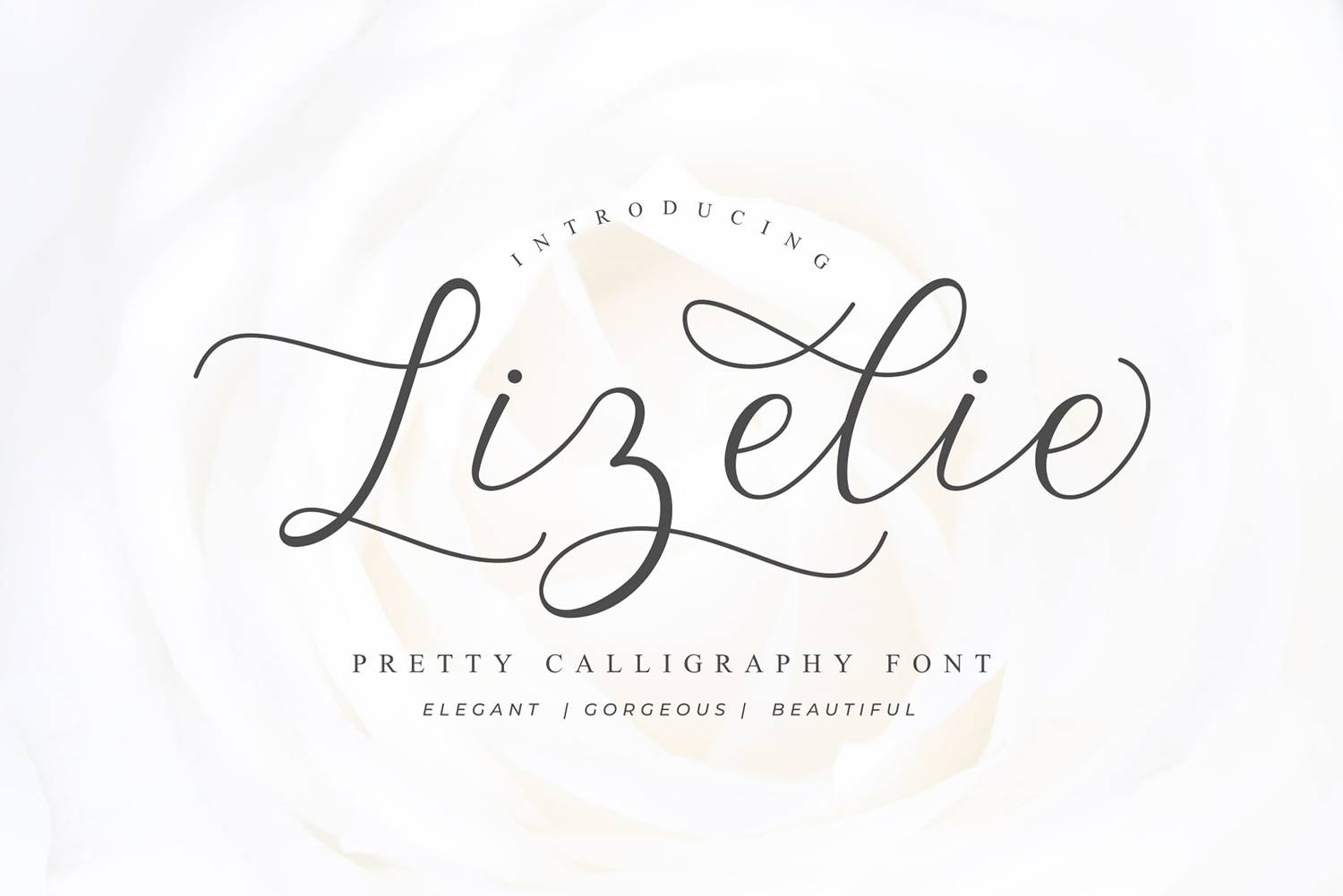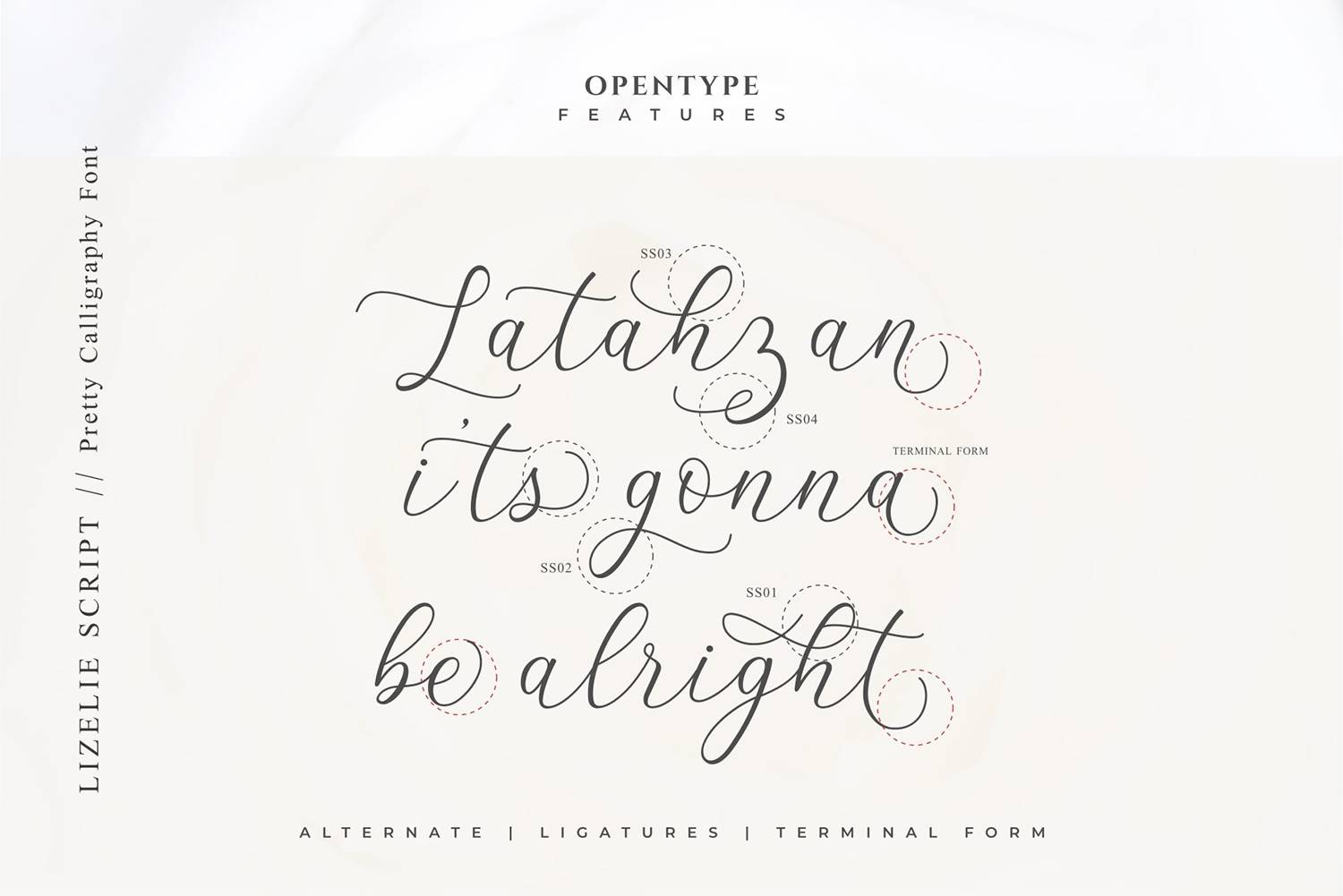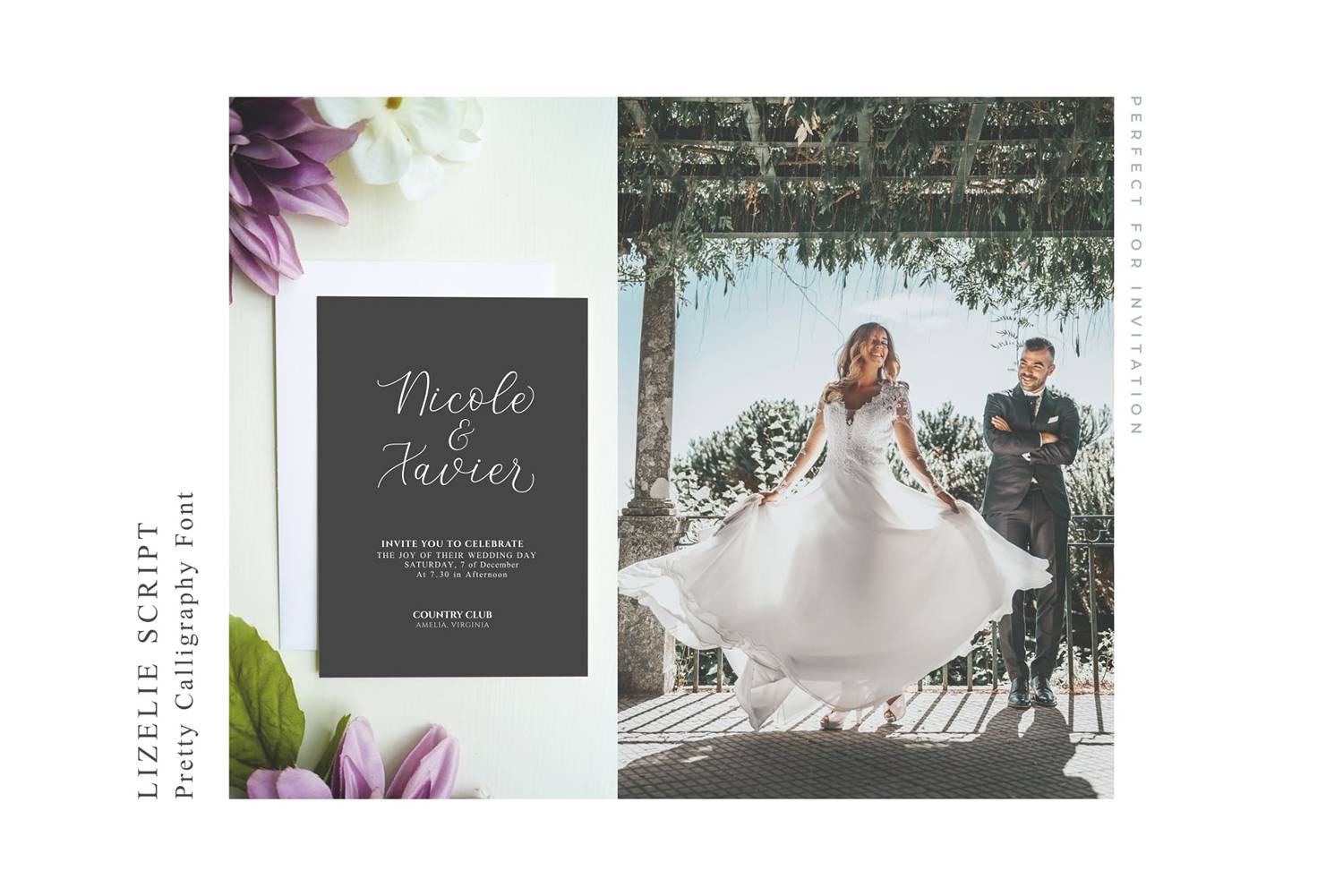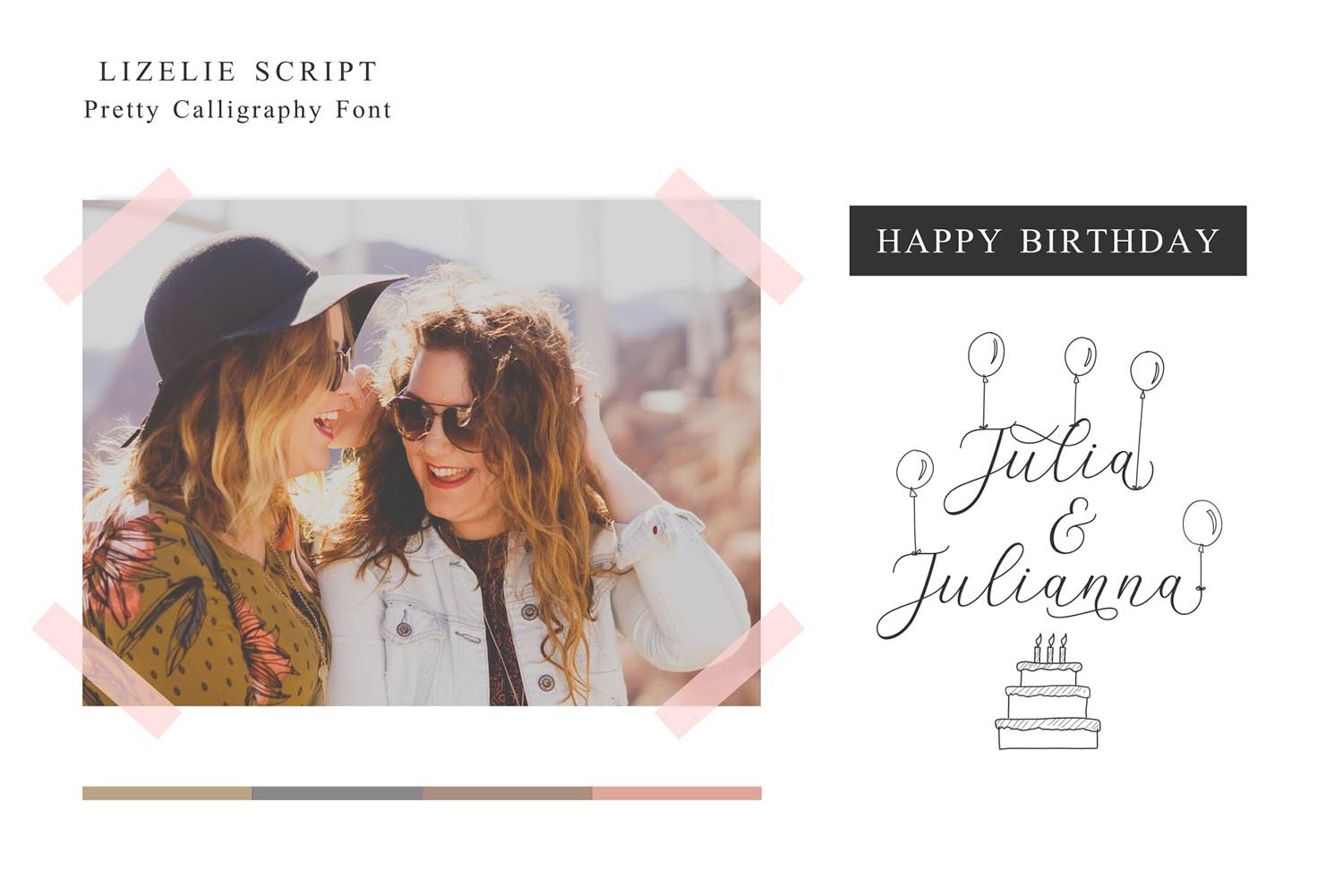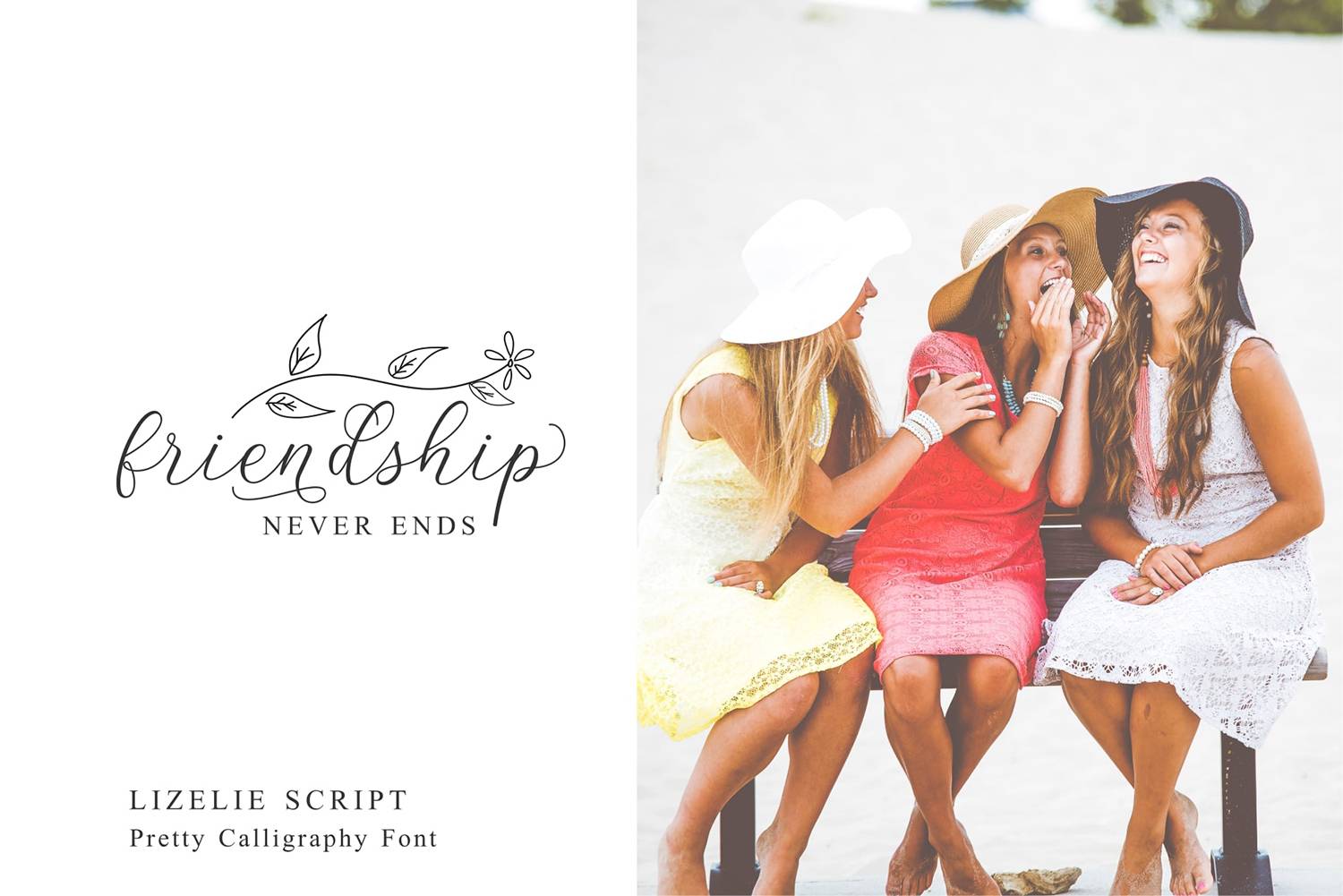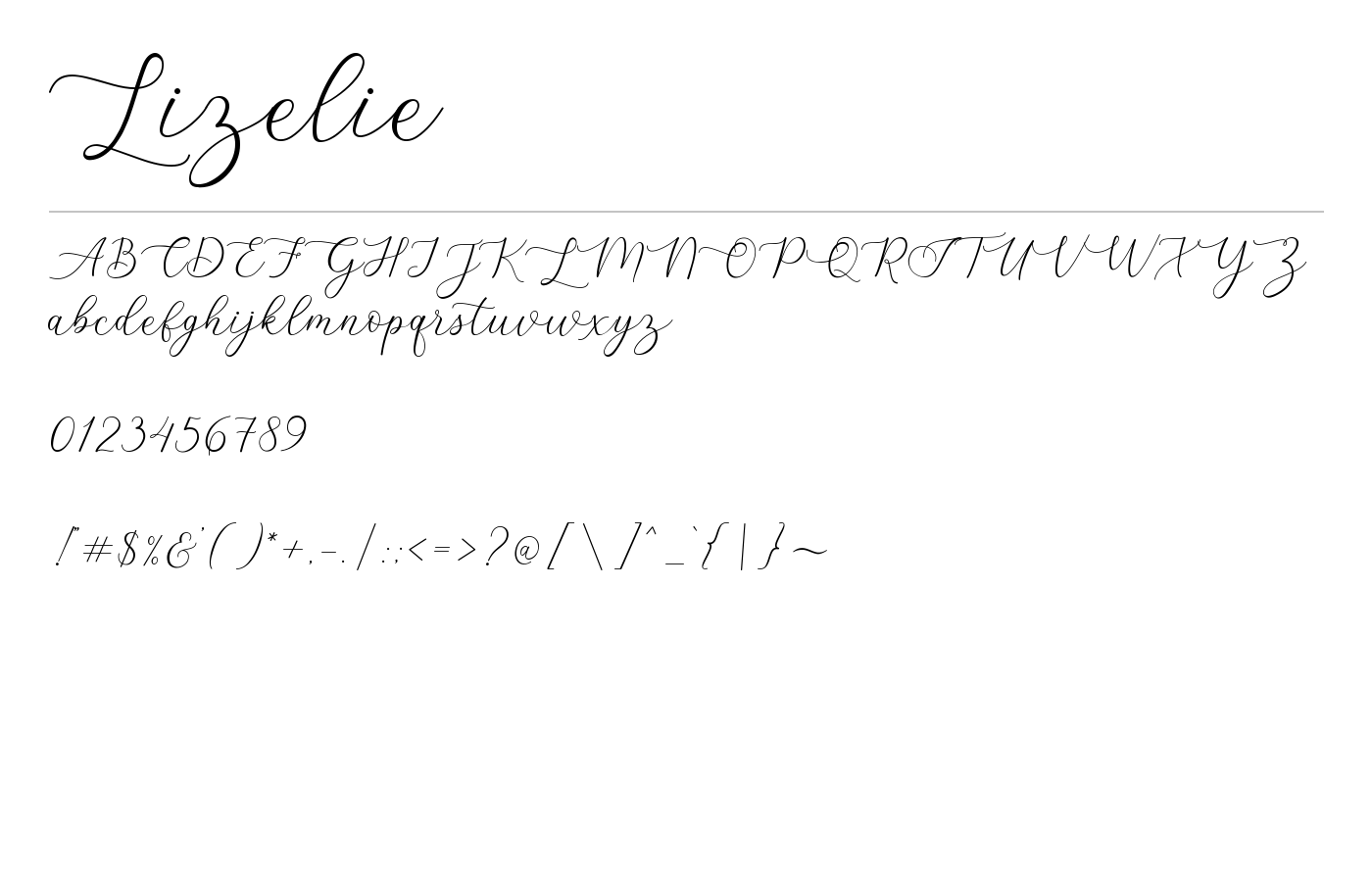
Lizelie is an elegant, delicate script font featuring fine, flowing strokes and graceful letterforms that evoke a sense of sophistication and charm. Its light weight and airy design make it perfect for luxury branding, wedding invitations, or feminine editorial projects where a refined and romantic touch is desired. This font works best in headlines or accents where its intricate details can be fully appreciated.
Lizelie Font
About Lizelie Font